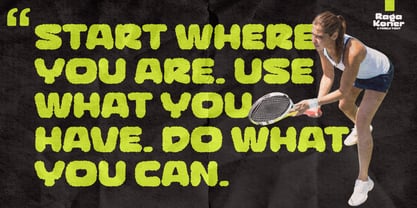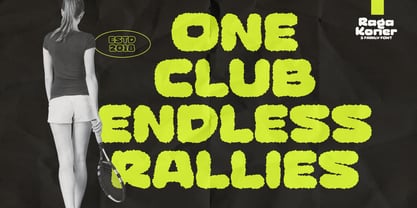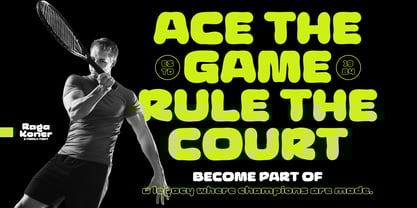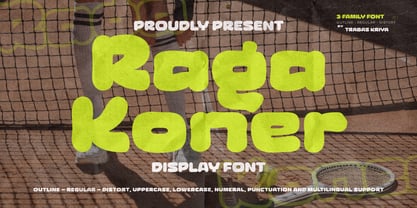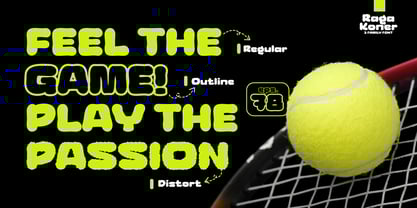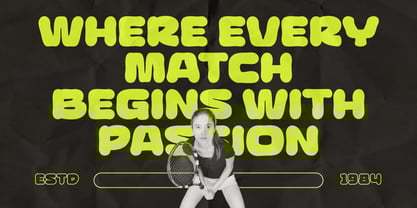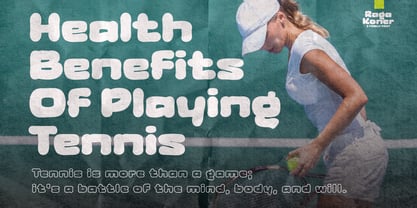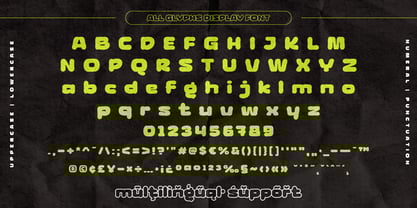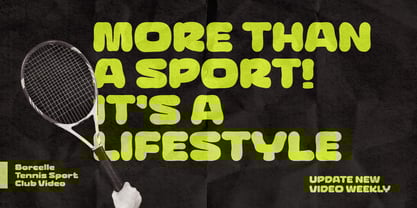
Raga Koner
Raga Koner is a bold display font inspired by the energy and spirit of tennis. With its rounded, heavy letterforms and playful proportions, it captures the dynamic motion and excitement found on the court. Each curve and shape radiates strength and warmth, making it perfect for designs that need to stand out and make a statement.
Ideal for sports posters, team jerseys, merchandise, event branding, and sports-themed social media graphics, Raga Koner offers three styles—Regular, Outline, and Distort—to give you the creative flexibility to match your project’s mood and energy.
More than just a sports font, Raga Koner is a symbol of passion and drive. It adds impact to your visuals, strengthens your message, and inspires excitement in your audience. With Raga Koner, every word becomes a highlight and every design comes alive.